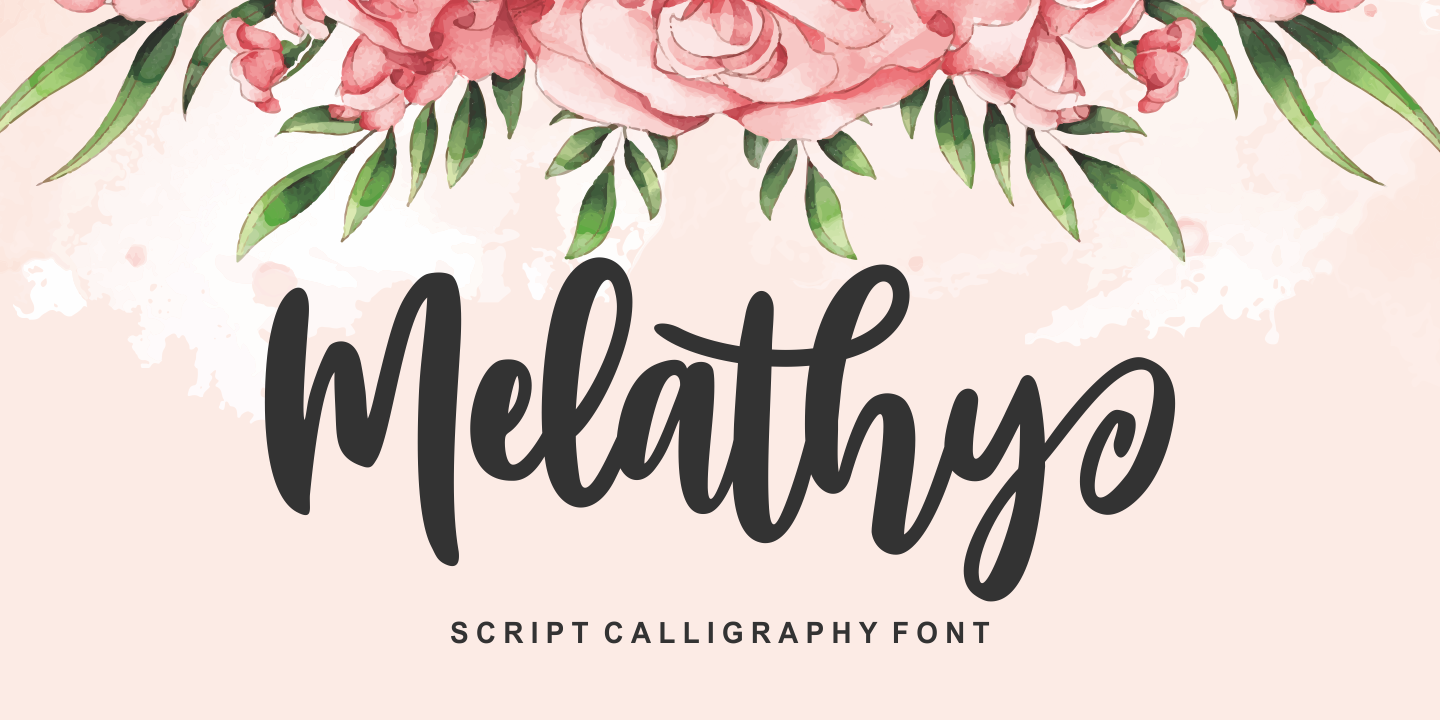
Melathy Font is perfect for compassionate healthcare branding, empathetic counseling services, tender emotional support materials, gentle wellness campaigns, caring community outreach programs, heartfelt sympathy cards, understanding therapeutic communications, nurturing childcare identities, sensitive mental health resources, and loving family-oriented marketing. Its empathetic character makes it ideal for projects requiring emotional warmth and compassionate visual appeal that celebrates human understanding and caring connection.
What makes Melathy Font exciting is its profound ability to convey genuine human empathy and emotional warmth through letterforms that embody the tender care and understanding essential for meaningful human connections. The font features soft, embracing curves with compassionate proportions that convey emotional safety and understanding while maintaining excellent readability for sensitive communications. Its empathetic character transforms ordinary text into expressions of genuine care that make viewers feel heard, understood, and emotionally supported.
The Melathy Font family includes Regular, Bold, Light, Gentle, Caring, Tender, and Compassionate variations. Each style preserves the font's empathetic essence while offering different levels of emotional warmth and caring weight for creating authentic supportive graphics. The comprehensive character set includes caring symbols, empathetic ornaments, gentle decorations, and compassionate glyphs essential for genuine healthcare and emotional support typography projects.
Healthcare professionals and caring organizations consistently choose Melathy Font Free Download for projects demanding authentic empathetic typography solutions. The font's compassionate character instantly establishes emotional credibility while ensuring clear communication across caring service marketing channels. Its versatility spans from subtle empathetic touches to bold statements that celebrate the healing power of human empathy and the essential importance of emotional understanding in building supportive communities.
Whether you're developing healthcare brand identities, creating compassionate marketing materials, or designing empathetic communications, Melathy Font provides the perfect combination of emotional authenticity and contemporary functionality. The font's caringly crafted letterforms ensure genuine empathetic character while maintaining excellent performance across various healthcare applications and supportive business communications.
The caring heritage of Melathy Font makes it exceptional for creating healing connections with audiences seeking emotional support and human understanding. Its empathetic precision and compassionate appeal work seamlessly across traditional healthcare materials and modern digital wellness platforms. The font performs tenderly in both large-scale caring displays and intimate supportive communications.
Embrace compassionate communication with Melathy Font and discover how authentic empathetic typography can enhance your caring projects with genuine emotional appeal and therapeutic sophistication. This remarkable typeface combines empathy tradition with contemporary functionality, making it indispensable for healthcare professionals celebrating the healing power of human understanding and the transformative strength of compassionate care.